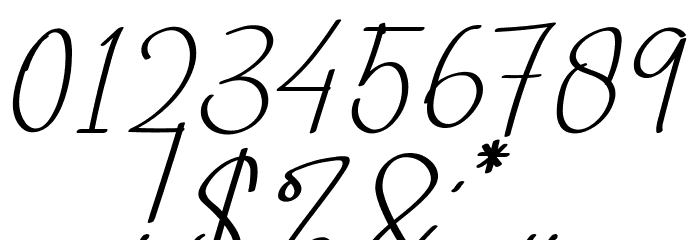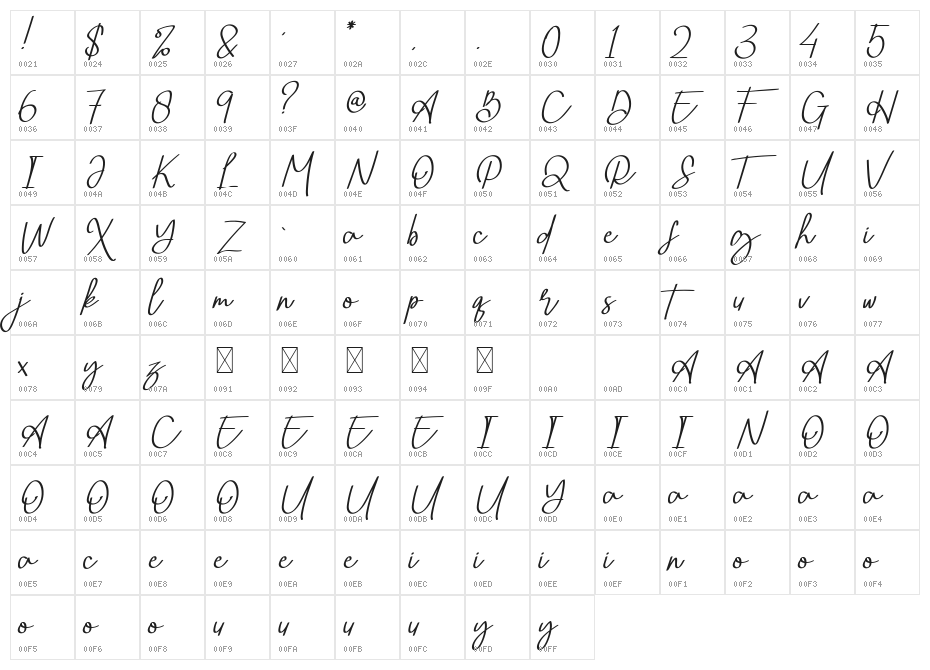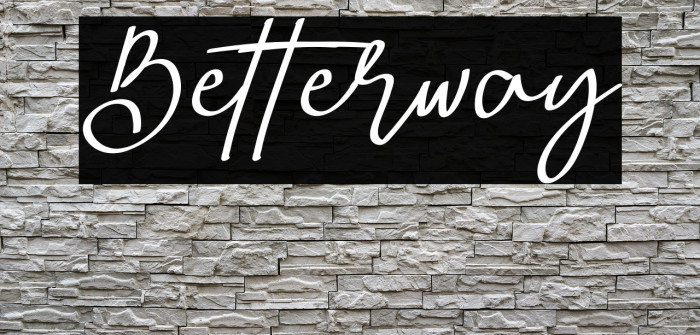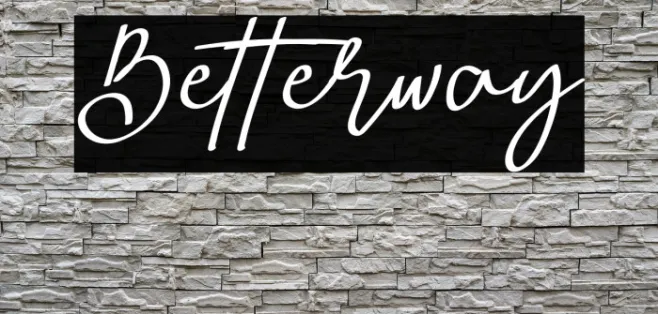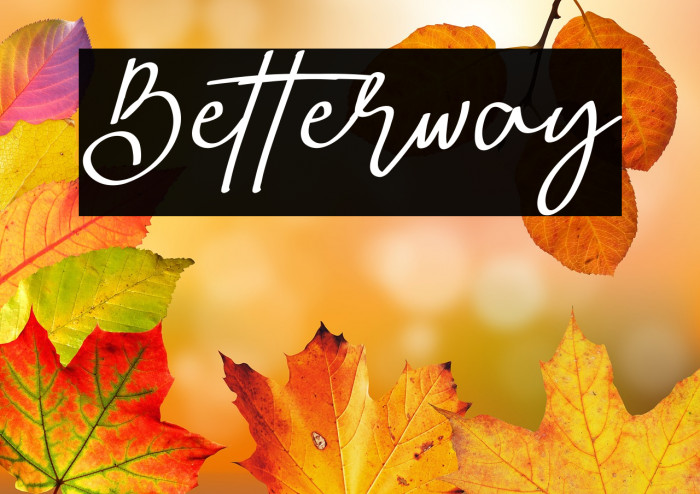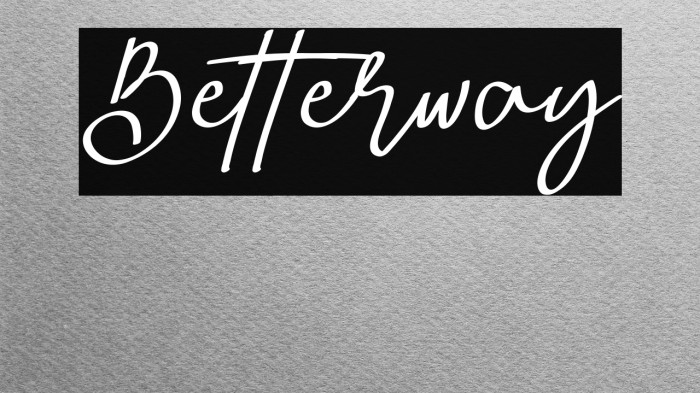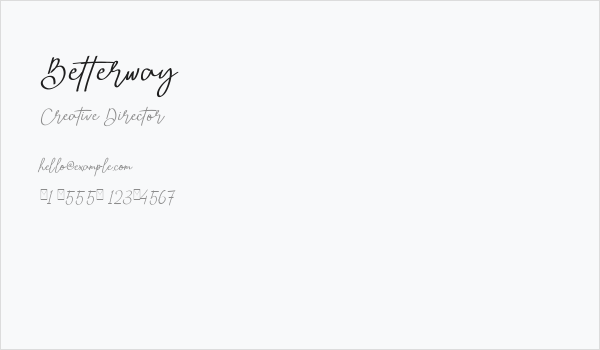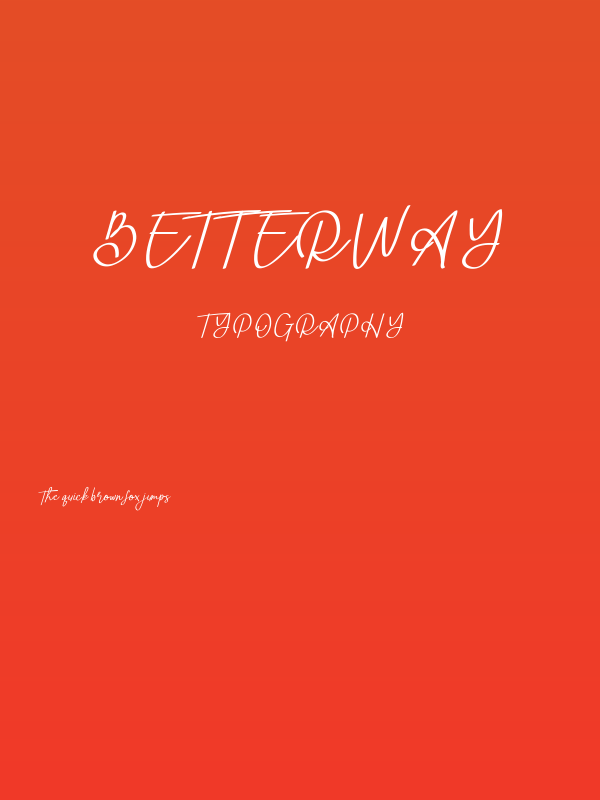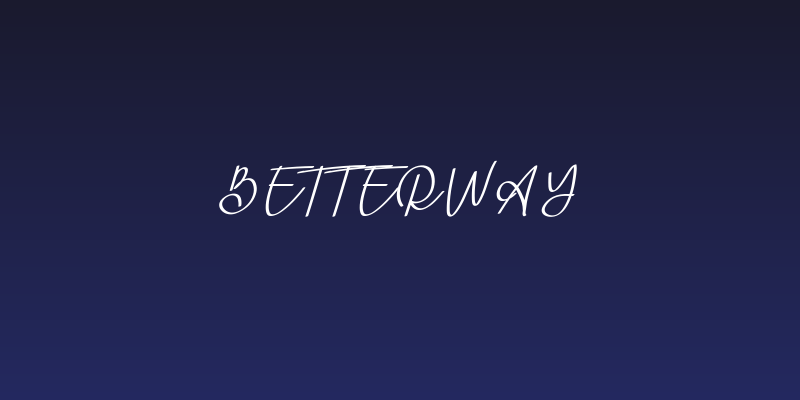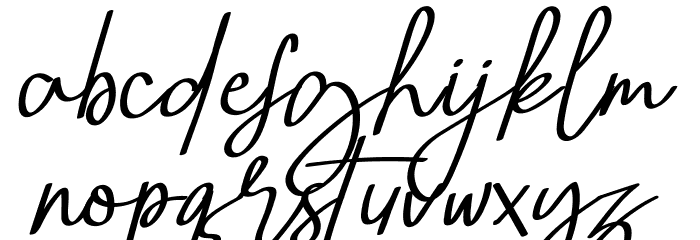
Betterway Font
Betterway Description
This font features a dynamic and fluid script style that mimics natural handwriting. The uppercase letters are elegantly elongated with smooth curves and a slight slant, giving them a sophisticated yet approachable appearance. The lowercase letters maintain a consistent flow, with some characters featuring distinctive loops and swashes that add to the font's charm. Numbers and special characters are crafted with the same attention to detail, ensuring a cohesive look across all text. The overall design is both stylish and legible, making it suitable for a variety of creative applications.